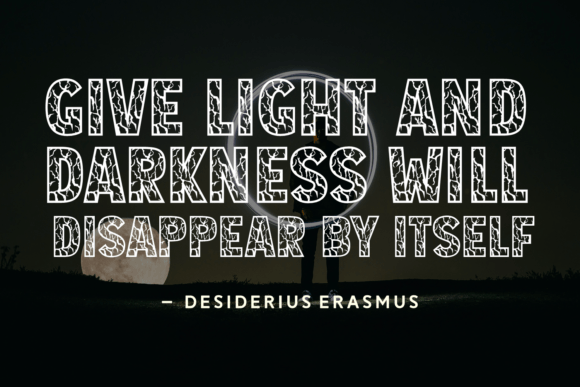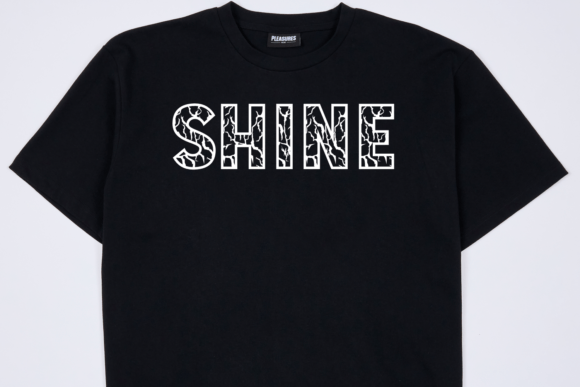
Introduction to Light Strikes Font
Have you ever found yourself staring at a blank page, waiting for that spark of creativity to strike? For designers, that moment is often the most thrilling part of the creative process. But what if you had a tool that could amplify that spark, making your design projects shine with an electrifying energy? Enter the Light Strikes Font, a game-changing design resource that brings a dynamic, thunderous effect to your typography.
With its bold, high-quality design and transparent background, the Light Strikes Font is the perfect addition to any creative project. Whether you’re working on a logo, poster, or branding material, this font is sure to command attention and leave a lasting impression. And the best part? It’s available for free download, making it an accessible design resource for designers of all levels.
Key Features of Light Strikes Font
- High-quality design resource with a transparent background, ideal for creative projects.
- Features a unique, striking design that sets it apart from other fonts, perfect for making a statement in your creative project.
- Perfect for use in digital and print design, including logos, typography, and other creative applications.
Honest Review: Light Strikes Font
I recently stumbled upon the Light Strikes Font and was excited to give it a try in my creative project. The font is a free download, which is always a plus when working on a budget. After exploring the design resource, I was impressed with the quality of the font.
- ✨ The font is highly customizable, allowing me to adjust the weight, size, and color to fit my design needs.
- ✨ The transparent background feature is a game-changer for creating seamless designs.
- ✨ The font is highly legible, making it perfect for body text or headings.
- ⚠️ The font does not support some special characters, which may be a issue for certain designs.
Overall, I’m impressed with the Light Strikes Font. It’s a great resource for designers working on smaller projects or personal creative endeavors. While it may have some limitations, the quality and customization options make it a valuable addition to any design library.
The Light Strikes Font is a high-quality design resource perfect for any creative project. It can be downloaded for free and comes with a transparent background, making it easy to integrate into your design.
Tips for Getting the Most Out of Light Strikes Font
For the best results, use the Light Strikes Font in conjunction with other high-quality design resources. Experiment with different font sizes, colors, and styles to create a unique and eye-catching design.
Common Use Cases for Light Strikes Font
The Light Strikes Font is perfect for any creative project, including:
- Social media graphics and ads